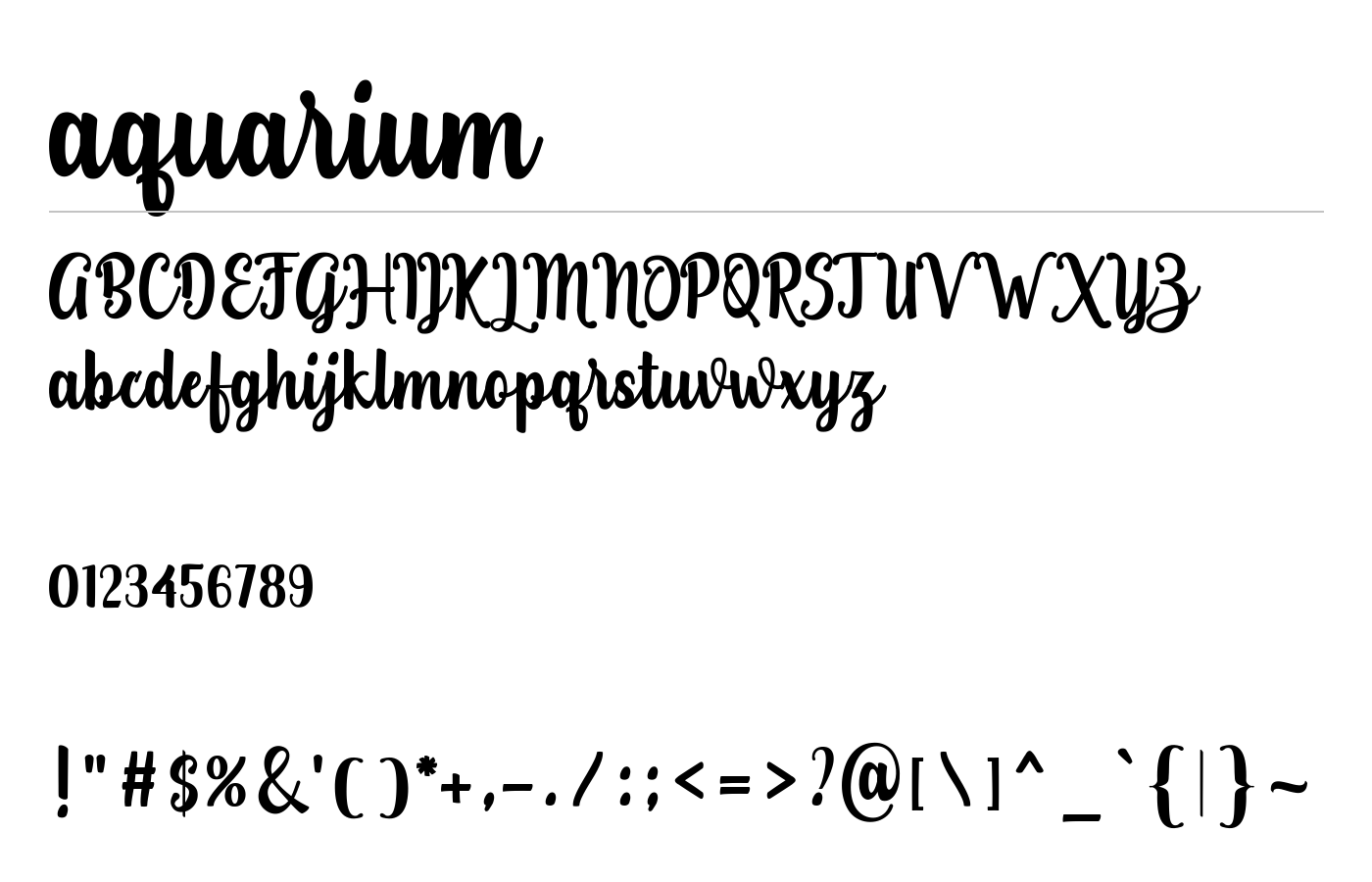
Aquarium is a playful and charming script font with a bold, hand-lettered feel that blends smooth curves and lively, decorative details. Its moderate x-height, rounded strokes, and quirky uppercase forms make it perfect for adding a fun and approachable personality to creative branding, invitations, or casual headlines. This font works well in designs that want to convey warmth and friendliness with a touch of unique flair.
aquarium Font
About aquarium Font
| Font family | aquarium Font |
| Designer | Aquilera Saiman |